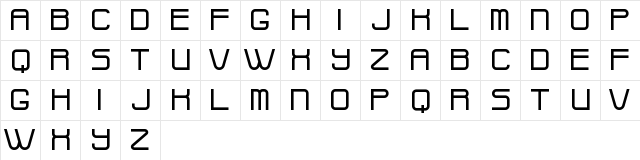
Widges Regular
| Foundry | 811 Studio |
| Designer | 811 Studio |
Design Context for Widges Typeface
Widges offers clean, dependable letterforms without strong stylistic allegiance, making it a practical choice for designers who need flexibility.